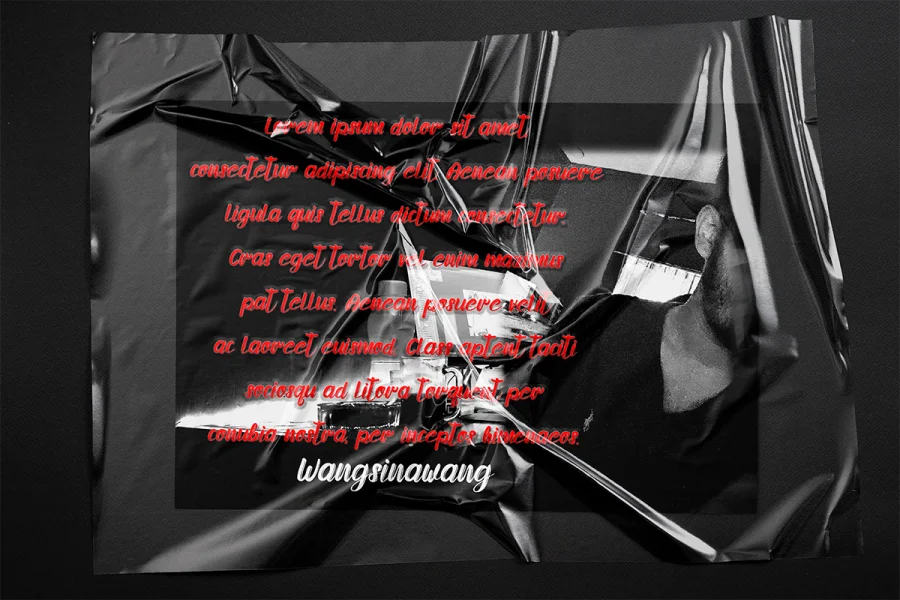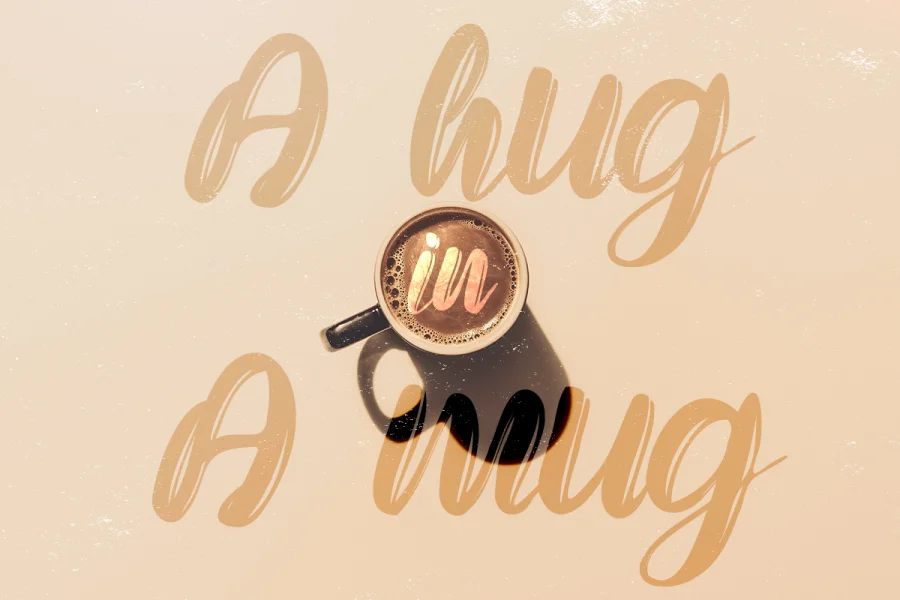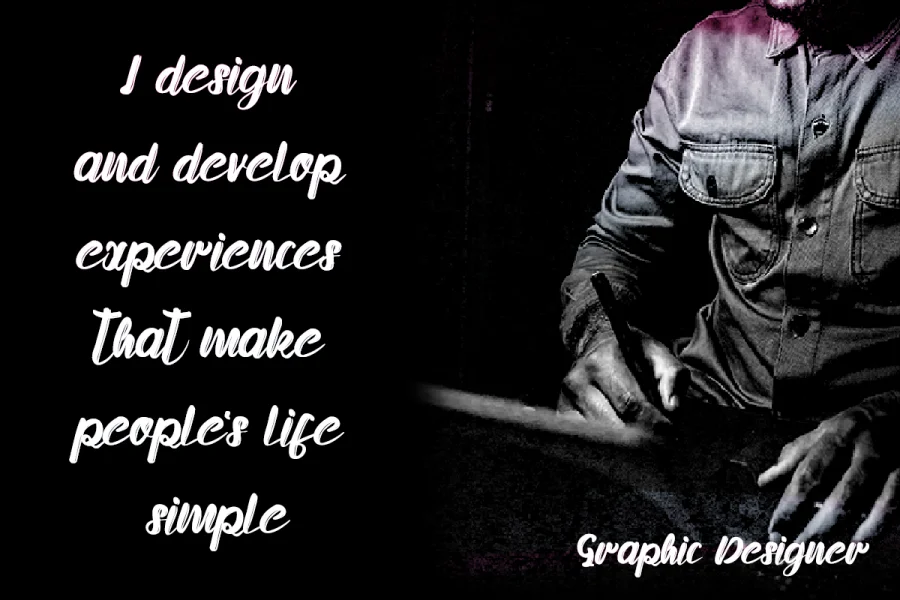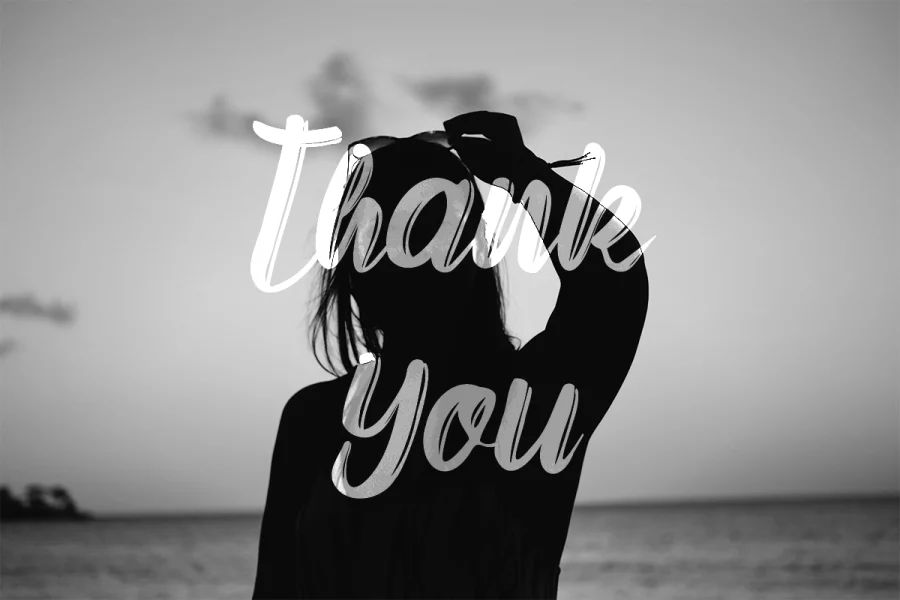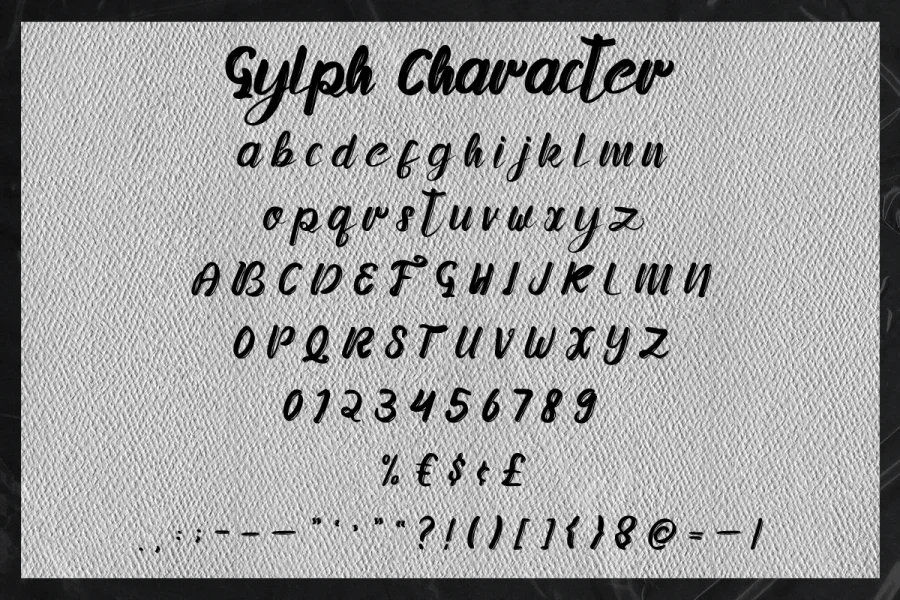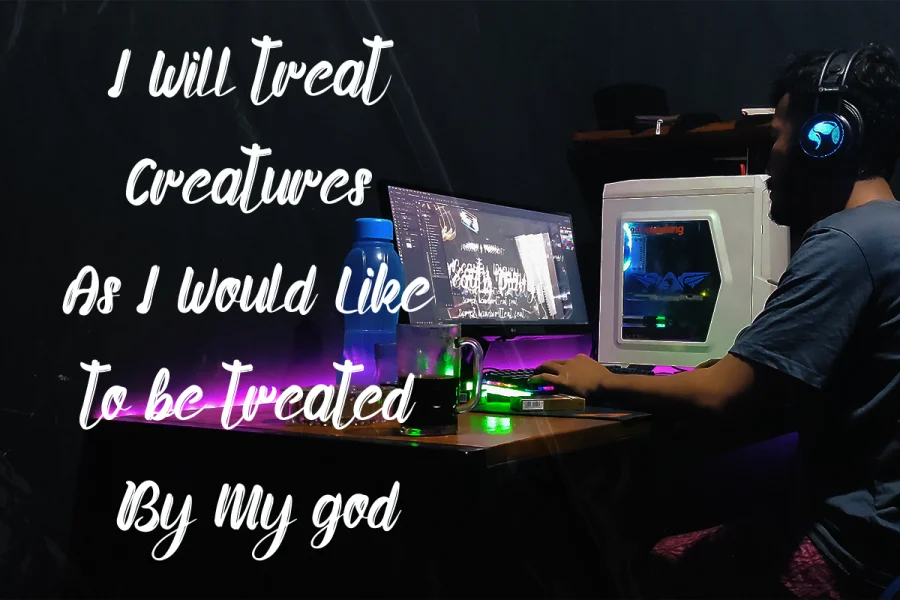
Beauty Diary is a casual handwritten font. It will add an incredibly joyful touch to your designs. Add this beautiful script font to each of your creative ideas and notice how it makes them stand out!